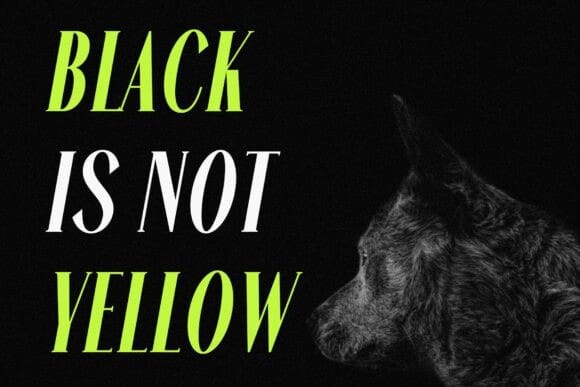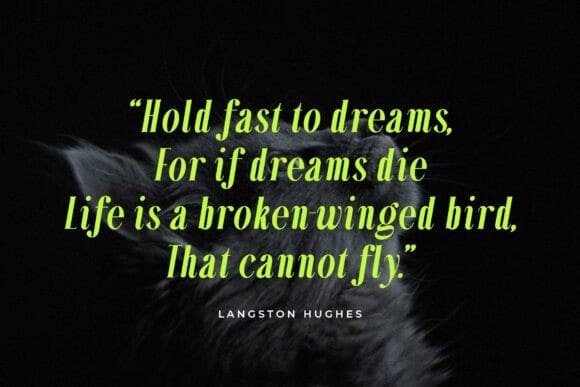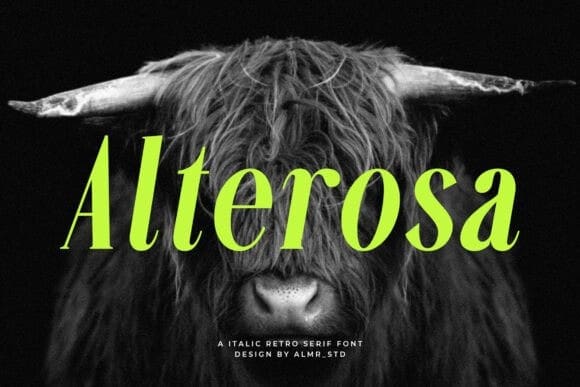
Alterosa Font
Alterosa Font – Italic serif font. Alterosa is a display, italic & retro serif font, This type of font is very suitable for your various needs such as branding projects, logos, social media posts, advertisements, labels, product packaging, photography, wedding designs, watermarks, invitation product designs, stationery, and any project.